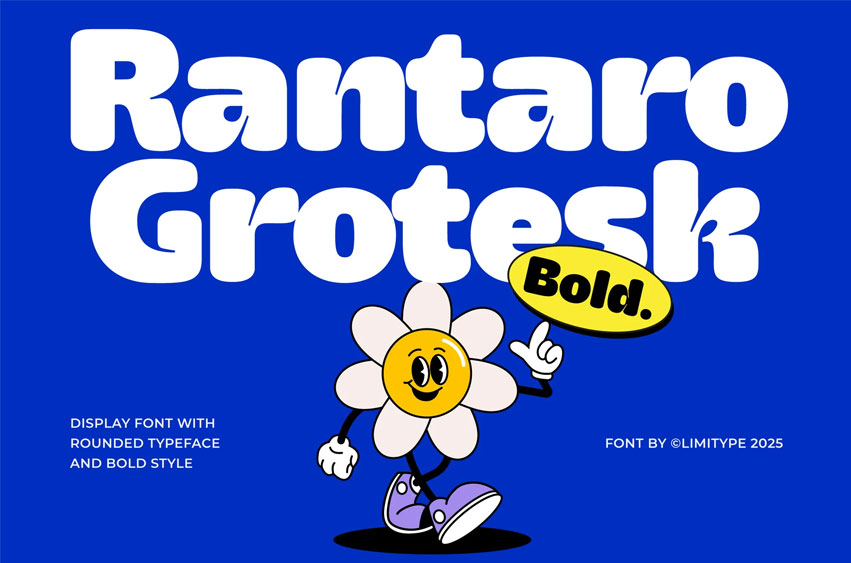
Rantaro Grotesk Bold Font
Rantaro Grotesk Bold Font is a contemporary display font characterized by its smooth, rounded design, which offers a friendly yet professional appearance. The unique inktrap details found on several characters add personality and help the font stand out.
It is ideal for large, eye-catching titles or headlines that require a bold, clear, and modern look without appearing overly rigid.